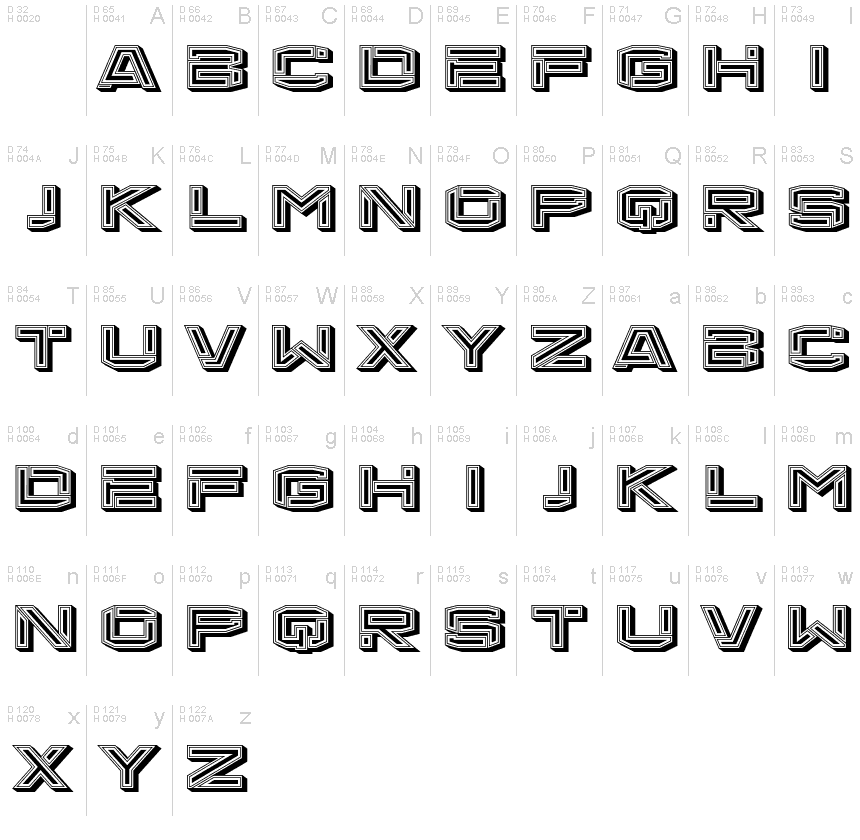
Perdite Regular
Perdite is a bold and futuristic display font designed by Vladimir Nikolic. Its extra-expanded width and techno style make it perfect for projects that require a cutting edge look, such as tech blogs, gaming websites, or sci-fi movie posters. The bold weight of the Perdite font gives it a powerful presence on any page, while its unique design will make your headlines stand out from the crowd. Whether you're creating a logo for your new startup or designing an app interface, Perdite is the perfect choice for anyone looking to add a touch of futuristic flair to their project.